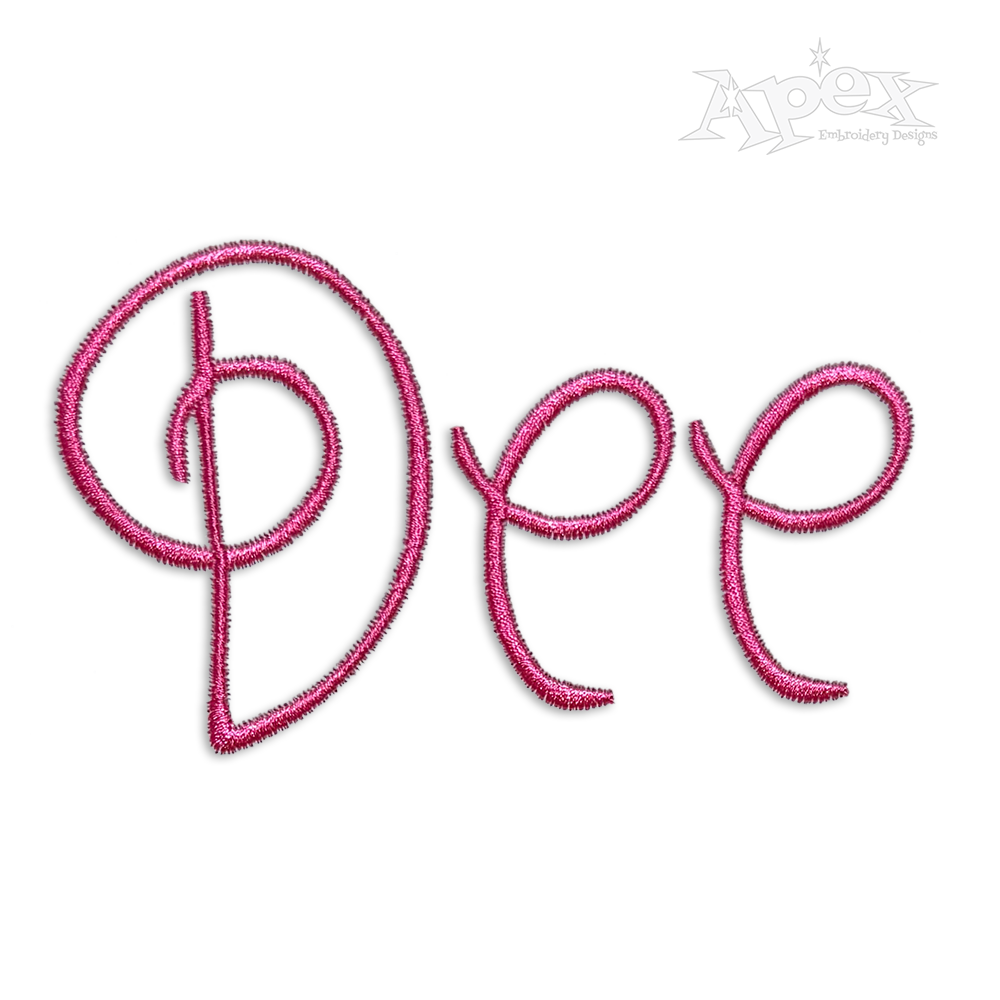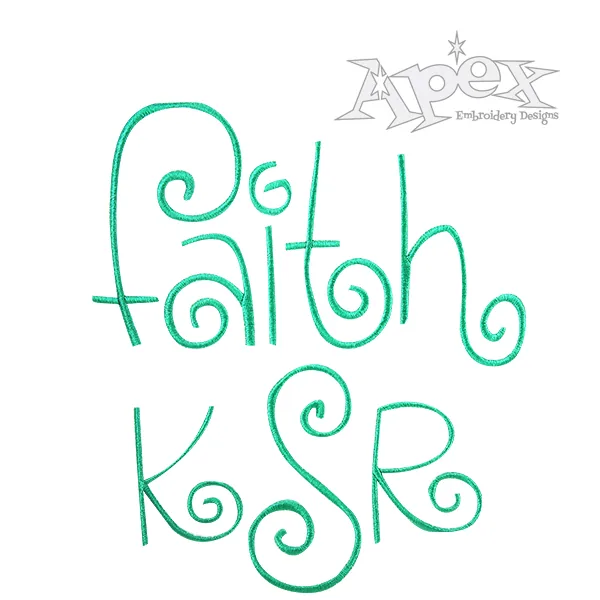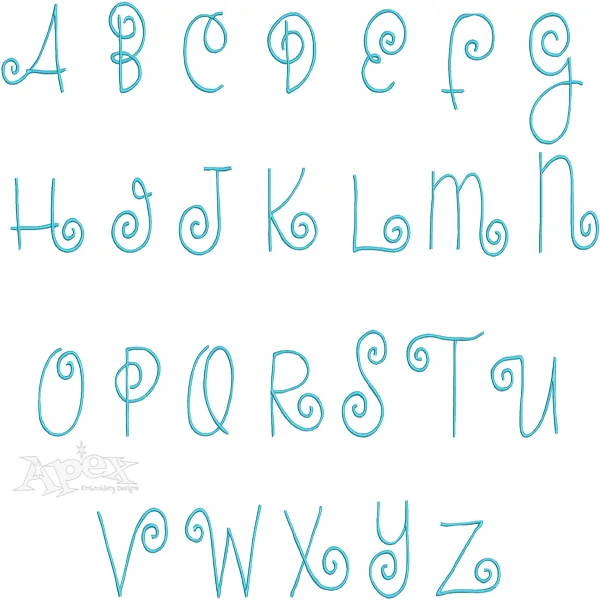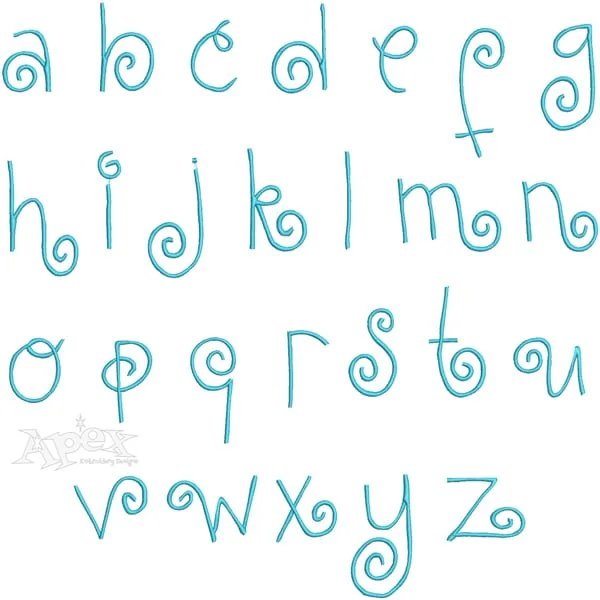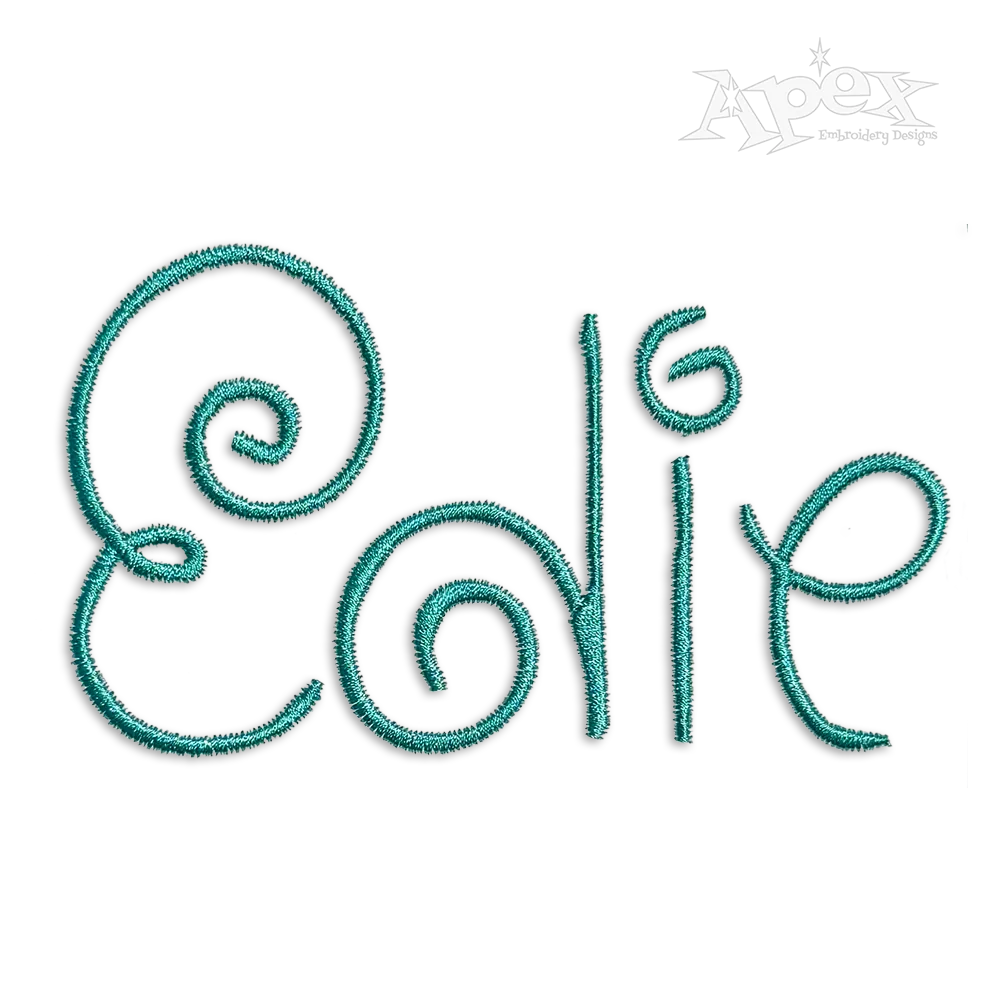
Kurlz Embroidery Font
Brimming with lively movement and untamed joy, the Kurlz Embroidery Font brings an infectious sense of celebration to the embroidery hoop. Inspired by spontaneous hand-drawn squiggles and carefree party ribbons, this typeface refuses to take itself too seriously. When translating its buoyant curves into thread, our digitizing studio focused on capturing that spirited dance—ensuring each curly terminal and jaunty angle renders with crisp, gleaming satin stitches that pop against a variety of woven textures. It is an alphabet designed to evoke smiles, turning everyday textiles into vibrant celebrations of individuality and sweet nostalgia.
- 3.0-inch Uppercase Alphabet: Bold, expressive capital letters featuring dramatic loops and signature curls that anchor initial monograms beautifully.
- 2.5-inch Lowercase Alphabet: Playful companion letters proportioned seamlessly to balance with the capitals for full names, phrases, and cheerful wording.
Project Ideas for Kurlz Embroidery Font
- Whimsical Nursery Keepsakes: Stitch bright names onto heirloom baby quilts, waffle-weave swaddles, and plush minky milestone blankets.
- Children’s Birthday Ensembles: Personalize celebratory birthday shirts, party banners, and custom denim jackets with vibrant rainbow threads.
- Bespoke Canvas Accessories: Embroider expressive names and catchphrases across heavy canvas totes, school backpacks, and summer beach pouches.
- Festive Kitchen & Table Linens: Add an upbeat, casual touch to flour sack tea towels, barbecue apron pockets, and whimsical cocktail napkins.
- Personalized Gift Bundles: Create unforgettable personalized gifting for baby showers, young dancers, cheer squads, or festive holiday stockings.
- Center Chest & Bodice: Ideal for positioning across children's sweatshirts, pullovers, and pinafores where the large curves have room to breathe and shine.
- Corner Diagonal Accents: Arrange playful single-letter initials across the hemmed corner of table linens, fleece throw blankets, or cloth placemats.
- Above Pocket Alignment: Position full names neatly curved or straight across jacket fronts, scrub tops, or bib overalls just above pocket seams.
- Statement Pillow Borders: Embroider playful names or phrases centered on decorative reading pillows and nursery accent cushions.
Kurlz Embroidery Font Craft & Letterform Details
The magic of the Kurlz Embroidery Font lies in its exuberant silhouette, but digitizing such whimsical shapes requires disciplined engineering. Each letterform features dynamic, tapering strokes that culminate in tight, spring-loaded curls. In machine embroidery, navigating tight radii can easily lead to bulky thread build-up or distorted edges; to prevent this, we meticulously orchestrated stitch angles that flow fluidly around every curve. The satin columns gently fan through each arc, creating a smooth, light-reflective ribbon of thread rather than a static block of stitches.
Beneath the surface, foundational underlay stitches are balanced specifically for each stroke width. This internal framework provides firm dimensional loft and stabilizes fabric weave without causing stiffness or puckering. Undercover travel pathways are discreetly tucked beneath main satin columns to ensure clean transitions between strokes. The result is an effortless, bubbly alphabet that stitches out smoothly, maintaining its carefree personality whether sewn on soft knitwear, structured cotton, or sturdy canvas.